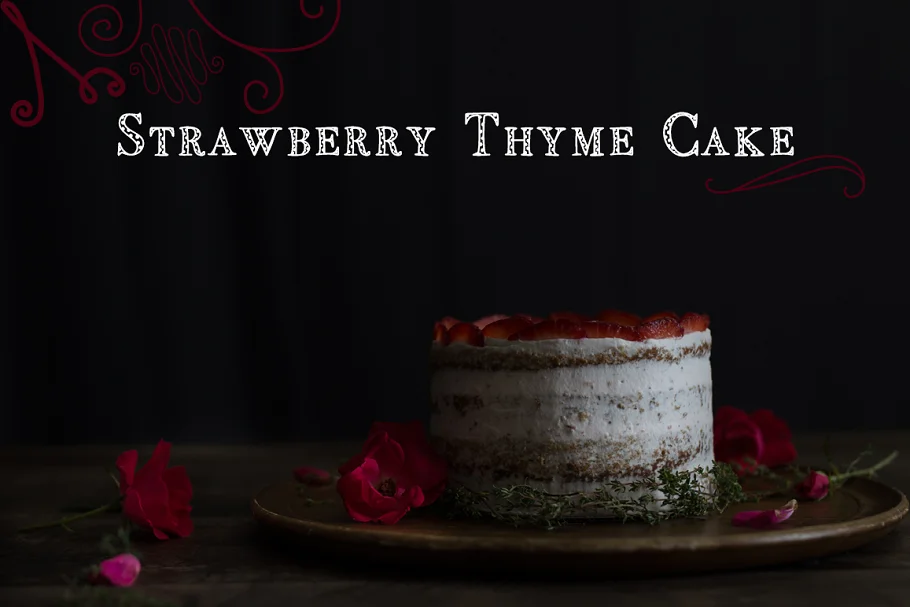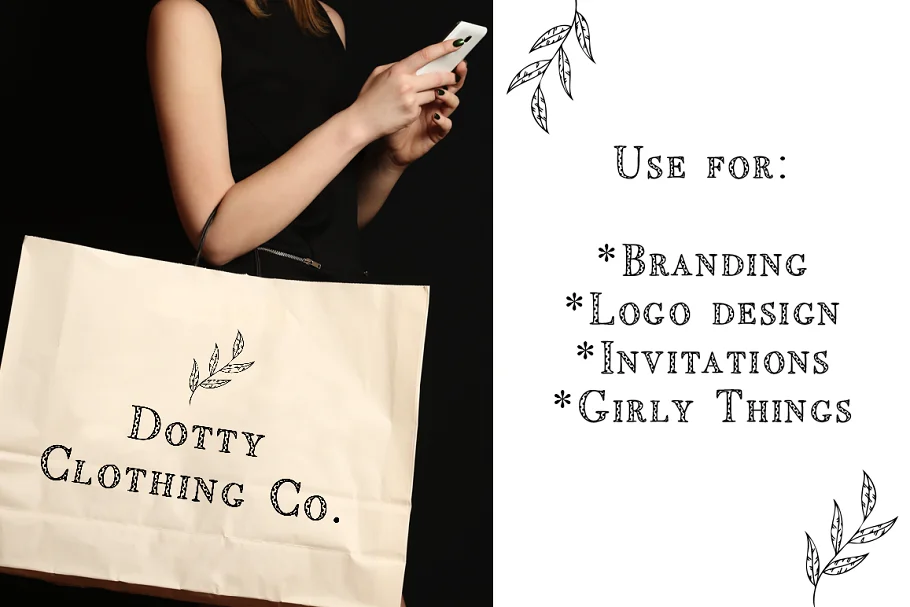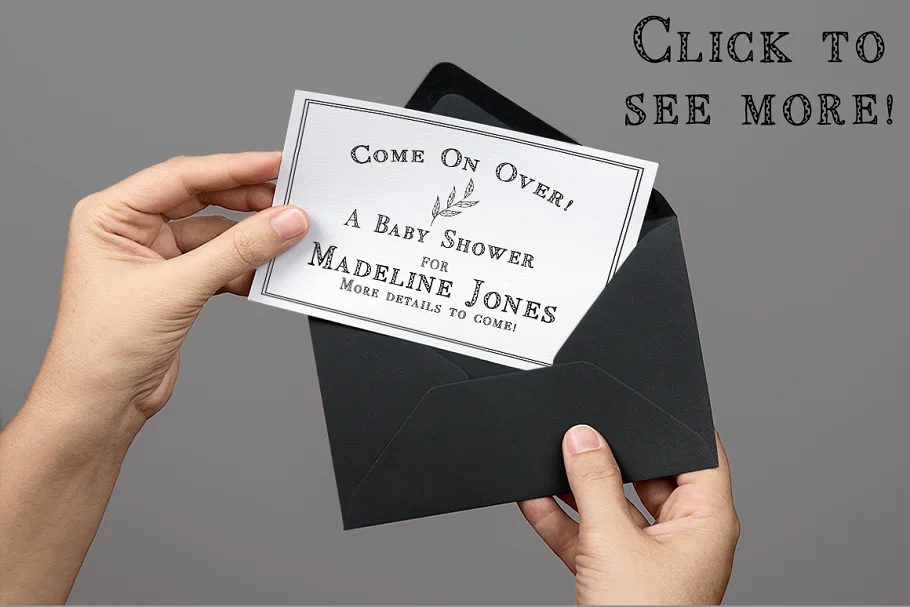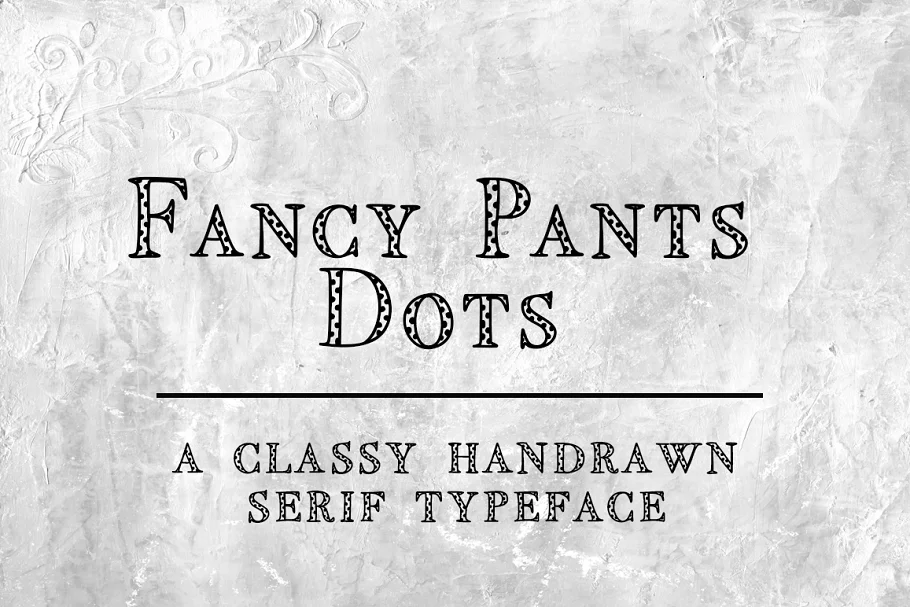
About the Fancy Pants Dots Serif Typeface Font
Layer colors, patterns, textures over this font and impress all of your clients with a feminine chic font that raises the standard for handwritten fonts! This adorable hand-drawn font is available to you today!